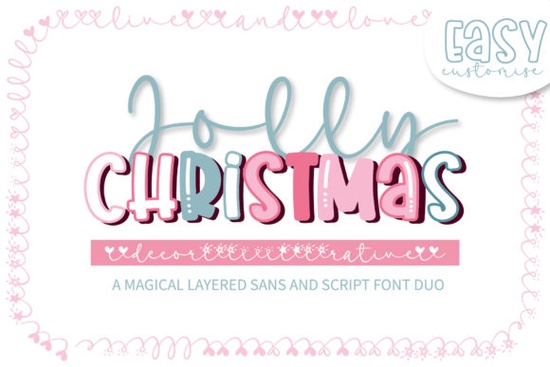
When you're working on holiday designs, the right font can make everything feel more festive and personal. Jolly Christmas is a casual handwritten font duo that comes with a built-in layer style, giving you flexibility to create text that looks hand-lettered with added depth and dimension. It's a solid pick for seasonal projects, greeting cards, and print-on-demand designs where you want that warm, handcrafted look without spending hours on custom lettering.
What Comes Included in the Jolly Christmas Font Duo?
This isn't just a single font file. As a duo, you get two complementary styles that work together or independently. The layer style feature means you can stack the fonts on top of each other to create shadow effects, outlines, or decorative overlays. This gives your text a more polished, dimensional appearance that looks great on both screen and print.
The natural, slightly imperfect letterforms are what make handwritten fonts feel approachable. Jolly Christmas leans into that casual, friendly aesthetic it doesn't try to look overly refined, which is exactly what makes it work for holiday-themed designs.
How Do Layer Style Fonts Actually Work?
If you've never used a layered font before, the concept is simple:
- Layer 1 The base text in one style of the font
- Layer 2 An additional style placed on top or behind, creating a shadow, outline, or decorative effect
You type the same text twice using each style, align them in your design software, and you get a multi-dimensional look. Most programs like Adobe Illustrator, Photoshop, Canva, and even Cricut Design Space handle layered fonts without issues. The key is keeping your layers organized so they line up correctly.
What Types of Projects Work Best With This Font?
Jolly Christmas fits naturally into a range of creative projects. Here are some ideas where it tends to shine:
- Greeting cards and invitations Holiday party invites, Christmas cards, and seasonal thank-you notes
- Print-on-demand products Mugs, tote bags, t-shirts, and ornaments with festive phrases
- Social media graphics Instagram posts, Pinterest pins, and Facebook banners for holiday promotions
- Gift tags and wrapping accessories Personalized tags, stickers, and labels
- Website headers and blog graphics Seasonal banners and promotional images
The casual style also works outside of Christmas specifically winter-themed designs, cozy lifestyle branding, and rustic farmhouse aesthetics can all benefit from this kind of handwritten look.
How Does It Compare to Other Handwritten Fonts?
There's no shortage of handwritten fonts out there, so how does Jolly Christmas stack up? It depends on the vibe you're going for. If you want something more elegant and flowing, Wedding Dream takes a different approach with its romantic, script-based style. For a fun, quirky personality, Penny Scribbles has a playful energy that works well for lighthearted designs.
On the other hand, if you're looking for something cheerful and upbeat rather than holiday-specific, Sunshine Olivia brings a bright, feminine touch. And for completely different themes, a sci-fi inspired option covers fandom and pop culture projects.
What sets this festive font apart is the combination of seasonal relevance, the duo structure, and the built-in layer style. Not every handwritten font gives you that kind of versatility right out of the box.
Tips for Getting the Best Results
Here are a few practical things to keep in mind when working with Jolly Christmas:
- Pair it with a clean sans-serif Handwritten fonts look best when balanced with simpler body text. Think Montserrat or Open Sans for supporting copy.
- Don't use it at very small sizes Casual handwritten styles can become hard to read when scaled down too much. Keep headings and display text at a comfortable size.
- Test your layers before exporting Make sure both font layers align properly, especially if you're printing on physical products.
- Experiment with color combinations The layer style works beautifully with contrasting colors, like dark red with gold or forest green with white.
- Save your work in editable format Keep an original file so you can tweak text or colors later without starting from scratch.